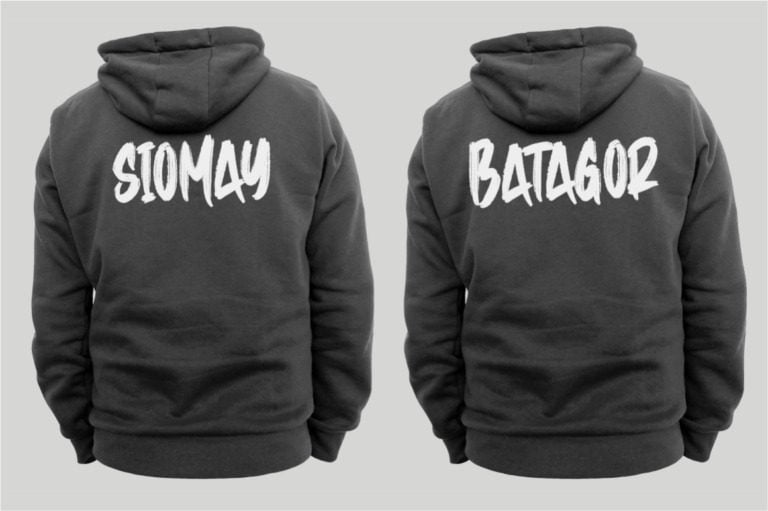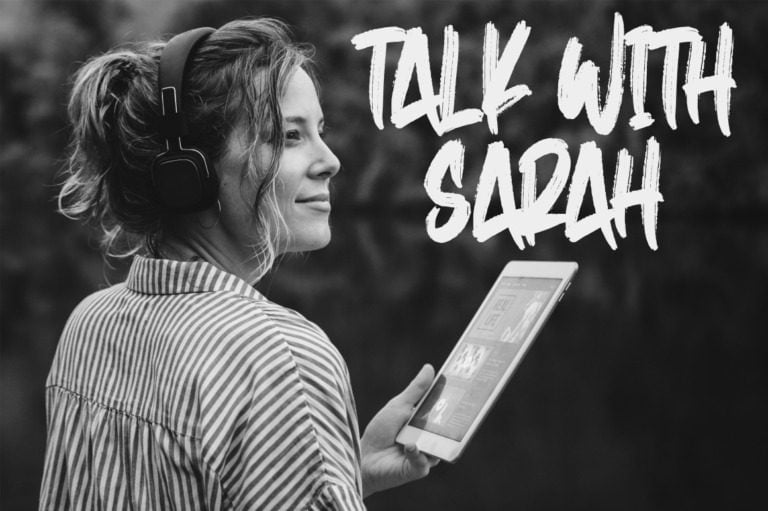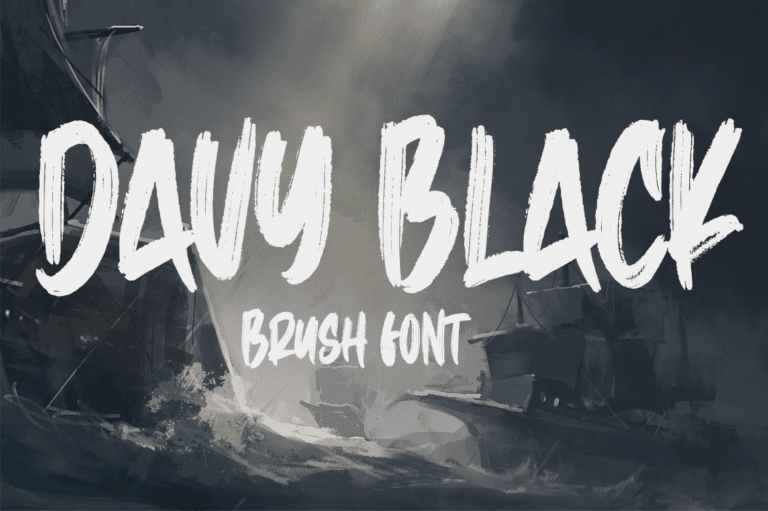
Davy Black Font
Davy Black is a bold and expressive brush font that adds a touch of rugged elegance to your designs. Its textured strokes and dynamic curves create a striking visual impact, making it perfect for headlines, logos, and packaging. Whether you’re designing a rock band poster or a luxury brand identity, Davy Black is sure to make a statement.